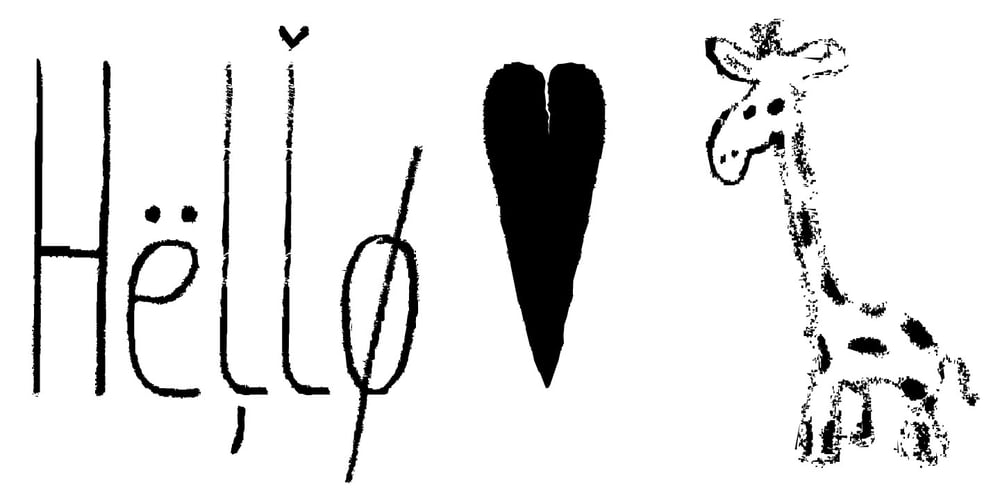
Giraffenhals Font Family was designed by Manuel Viergutz and published by TypoGraphicDesign. Giraffenhals contains 2 styles and family package options. The kiddy and rough character and the huge capital height with the tiny x-height (plus the cute giraffe character dingbats), gives the typeface a high recognition value and uniqueness. Application Area The warm, child-like, bold and striking handmade font “Giraffenhals” would look good at logos, display size for poster, flyer, comics and graphic novel lettering, headlines in magazines or websites, packaging, music covers or webbanner etc. Technical Specifications ■ Font Name: Giraffenhals ■ Font Weights: Regular-Condensed + Bold-Condensed + DEMO (with reduced glyph-set) ■ Font Category: Display for headline size ■ Font Format: .otf (OpenType Font for Mac + Win) + .ttf (TrueType Font) ■ Glyph Set: 443 glyphs ■ Language Support: Afrikaans, Albanian, Catalan, Croatian, Czech, Danish, Dutch, English, Estonian, Finnish, French, German, Hungarian, Icelandic, Italian, Latvian, Lithuanian, Maltese, Norwegian, Polish, Portugese, Romanian, Slovak, Slovenian, Spanisch, Swedish, Turkish, Zulu ■ Specials: Alternative letters, stylistic sets, automatic contextual alternates via OpenType Feature. Euro, kerning pairs, standard & decorative ligatures, Versal Eszett (German Capital Sharp S), extras like Dingbats & Symbols, arrows, hearts, emojis/smileys, stars, further numbers, lines & shapes ■ Design Date: 2011–2017 ■ Type Designer: Manuel Viergutz ■ License: Desktop license, Web license, App license, eBook license, Server license